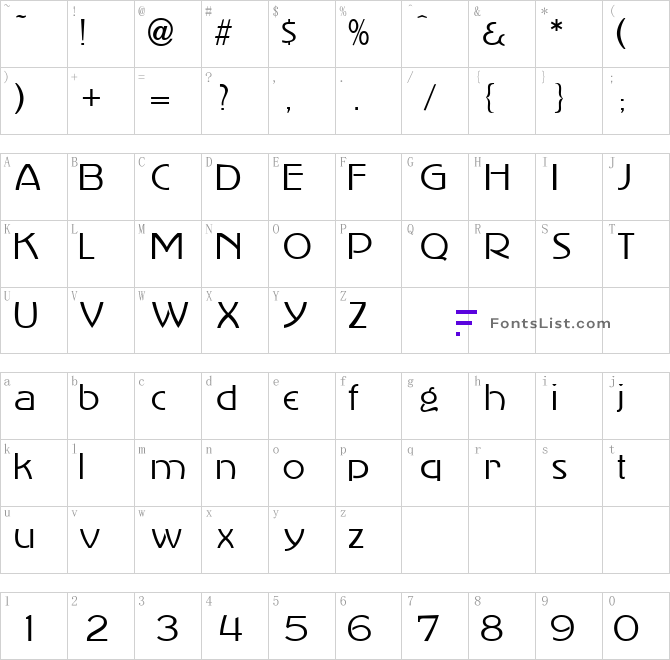
- Font Name:Advertisers Gothic Light
Advertisers-Gothic-Light.ttf is a very beautiful artistic font, Advertisers-Gothic-Light.ttf is widely used in the design and printing of various books and pictures,Advertisers-Gothic-Light.ttf has a strong visual impact,Advertisers-Gothic-Light.ttf is a commonly used font in newspapers, magazines and books, and is used in posters, e-commerce Poster design, store design, logo design, font design and other fields.Advertisers-Gothic-Light.